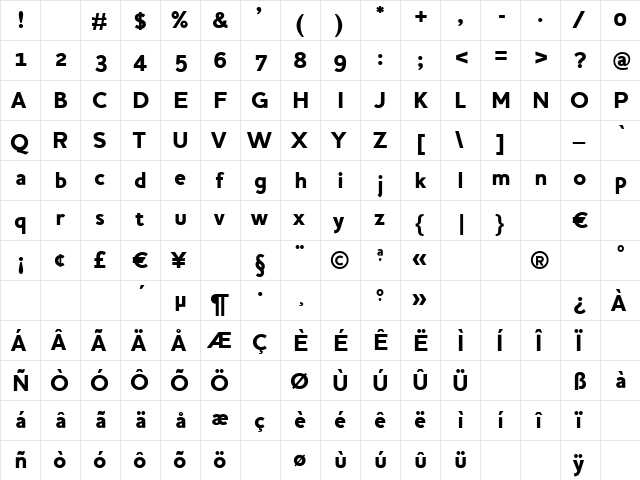
HouschkaAltBlack Regular
Design Context for HouschkaAltBlack Typeface
HouschkaAltBlack offers clean, dependable letterforms without strong stylistic allegiance, making it a practical choice for designers who need flexibility.
Pro Tip: Use HouschkaAltBlack in both headline and body roles to test its range before committing to a single application.